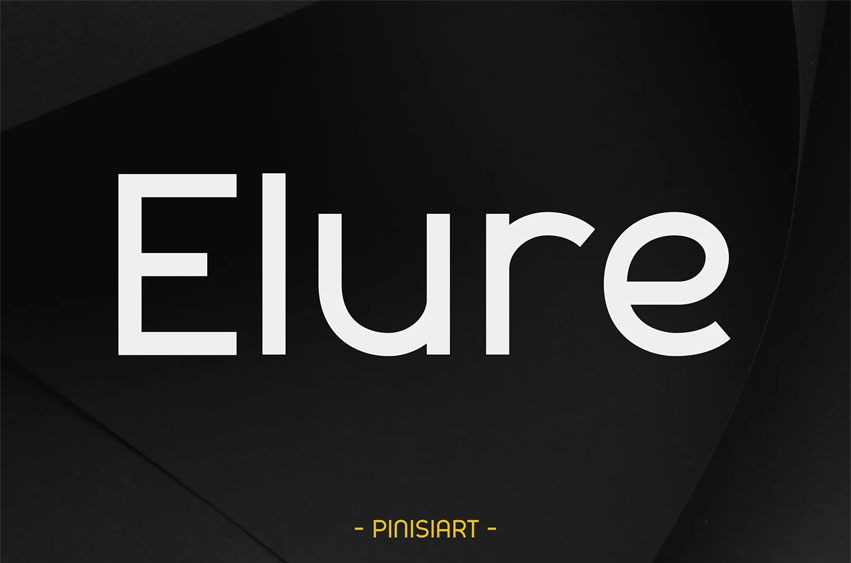
Elure Font
Elure Font is a modern geometric typeface crafted with soft curves, low contrast, and refined balance—designed to bring clear, confident energy to any layout. With a vibe that’s minimal yet expressive, Elure is built for clean branding and sharp, professional design.
Whether you’re designing for a tech startup, a clothing label, or a creative agency, Elure’s rounded structure and versatile readability make it ideal for logos, social media graphics, packaging, websites, and more.
Elure makes it easy to build design systems that feel intentional, sleek, and unified. From branding and posters to editorial layouts, calendar designs, or app UI—this font bridges modern clarity with a touch of warmth. Use it to deliver headlines that pop or interfaces that stay clean and calm.
If you need a font that looks great on both digital and print, Elure will help you stand out while staying grounded in simplicity.
• Geometric Clarity: Crisp letterforms with smooth terminals and balanced proportions for modern design.
• Flexible Use Cases: Perfect for branding, packaging, posters, interfaces, and editorial content.
• Legible at Every Size: From UI labels to bold titles, Elure stays clear and elegant.
• High-Impact, Low-Fuss: Minimalist by design, powerful in presence—without overpowering your message.